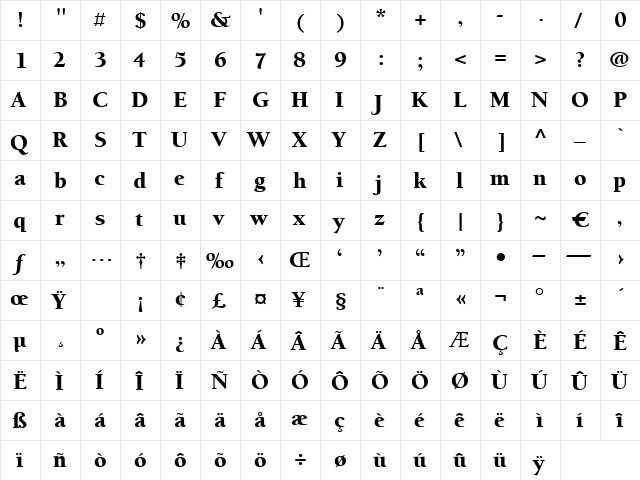
Brisbane Regular
Design Context for Brisbane Typeface
Brisbane takes a measured approach to typography — its balanced proportions and neutral character make it a reliable workhorse for both digital and print work.